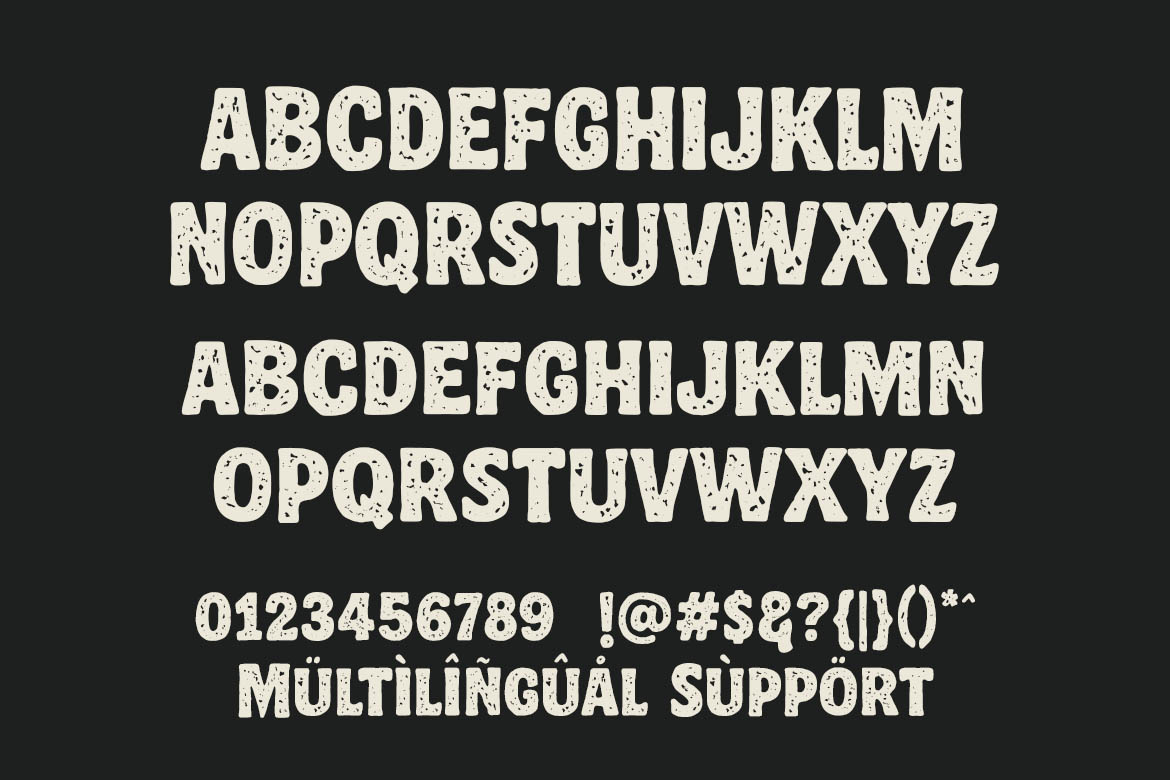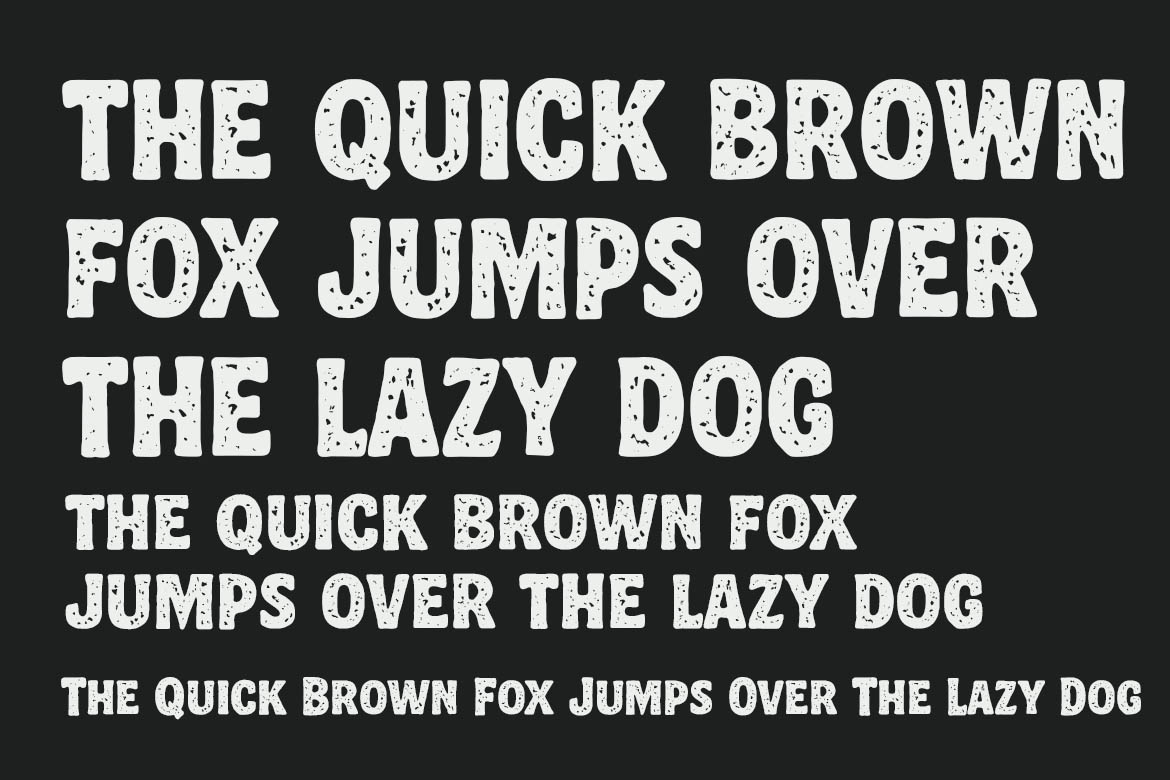
Vintage Parade
Vintage Parade is a bold and textured display font with a strong retro character. Its distressed letterforms evoke a nostalgic feel, making it perfect for vintage posters, retro product labels, old-school branding, music festival graphics, and handcrafted logo designs.
With rough textures and a sturdy structure, Vintage Parade brings an authentic aged look to your typography while remaining bold and readable. Great for apparel, packaging, signage, or any project that needs a timeless and rugged vibe. Available now on PrimeFont, your destination for unique and powerful fonts.